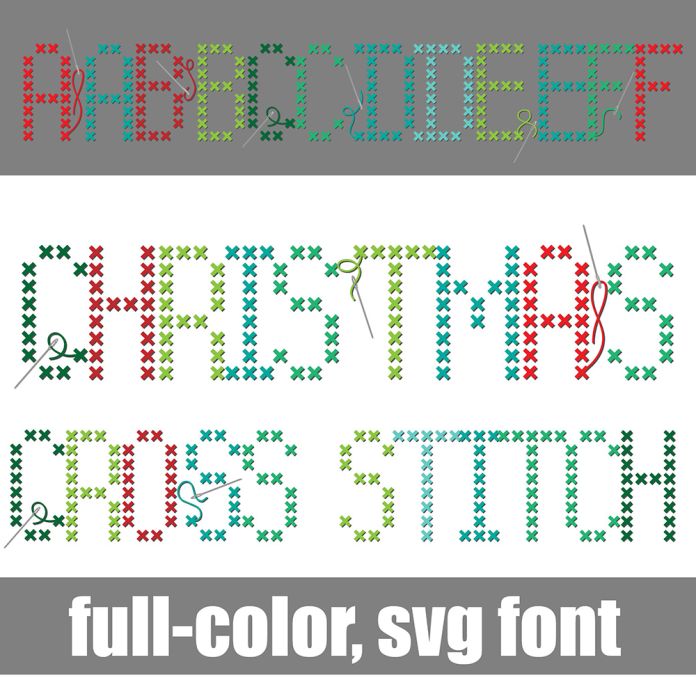
This full-color font looks like cross stitching with needles on the uppercase, all done in a Christmas color palette. There is an alt case with an additional color of each letter. This font works best for titles, displays, posters and more. Please note color fonts will show as black in non compatible programs. This font type is compatible with Silhouette Studio.